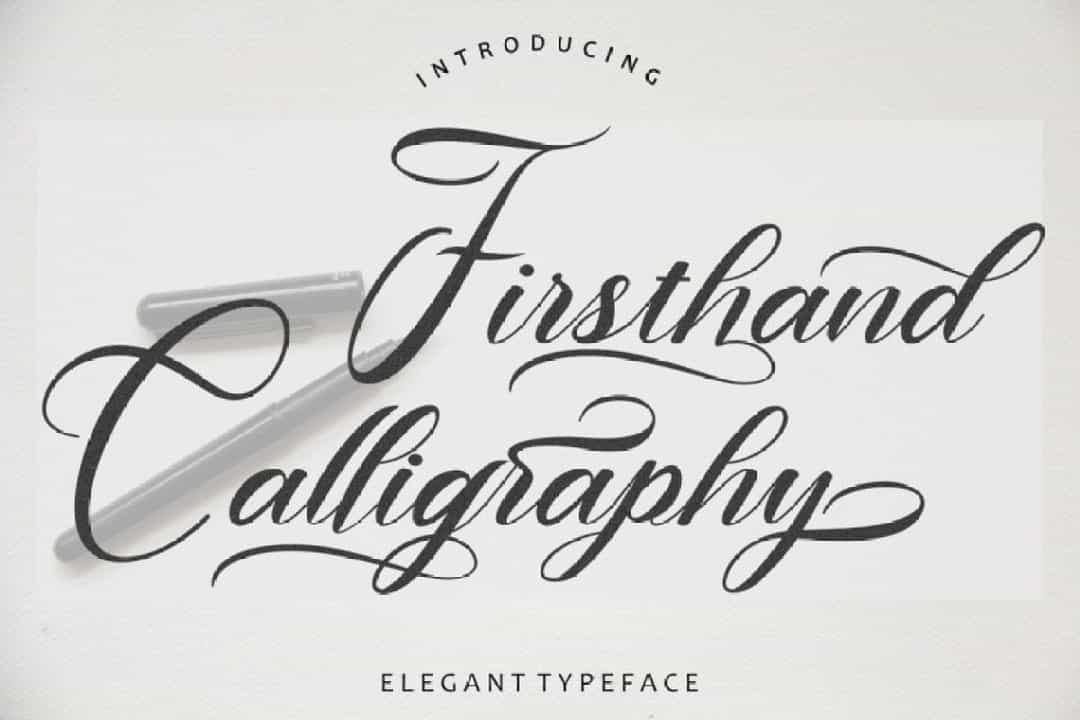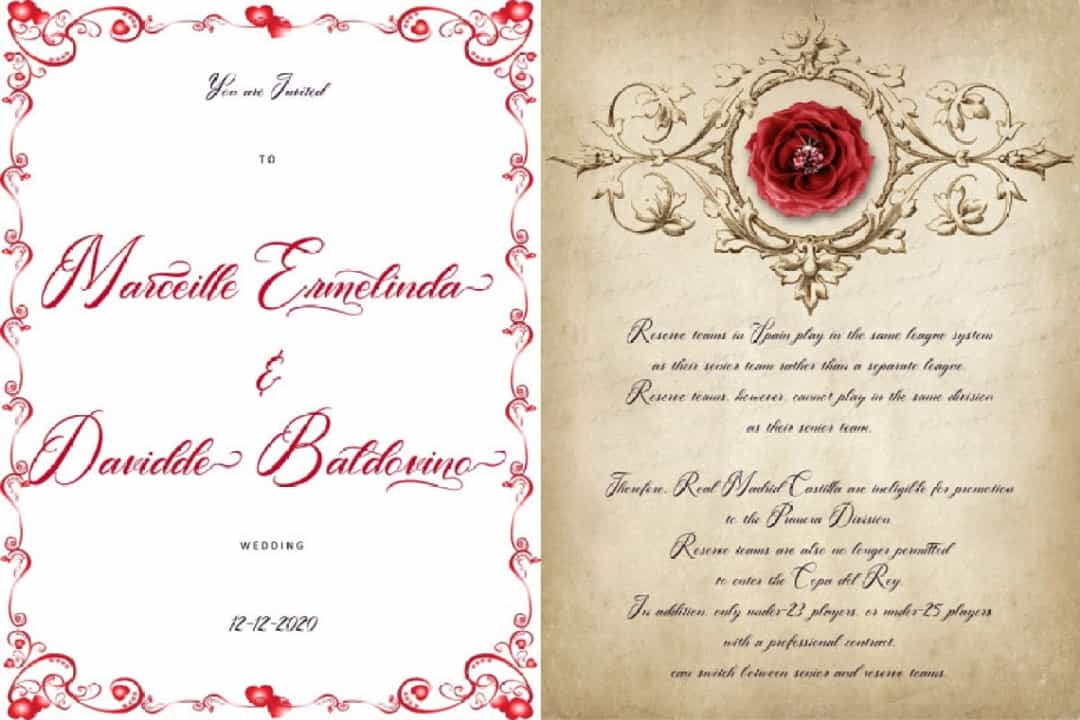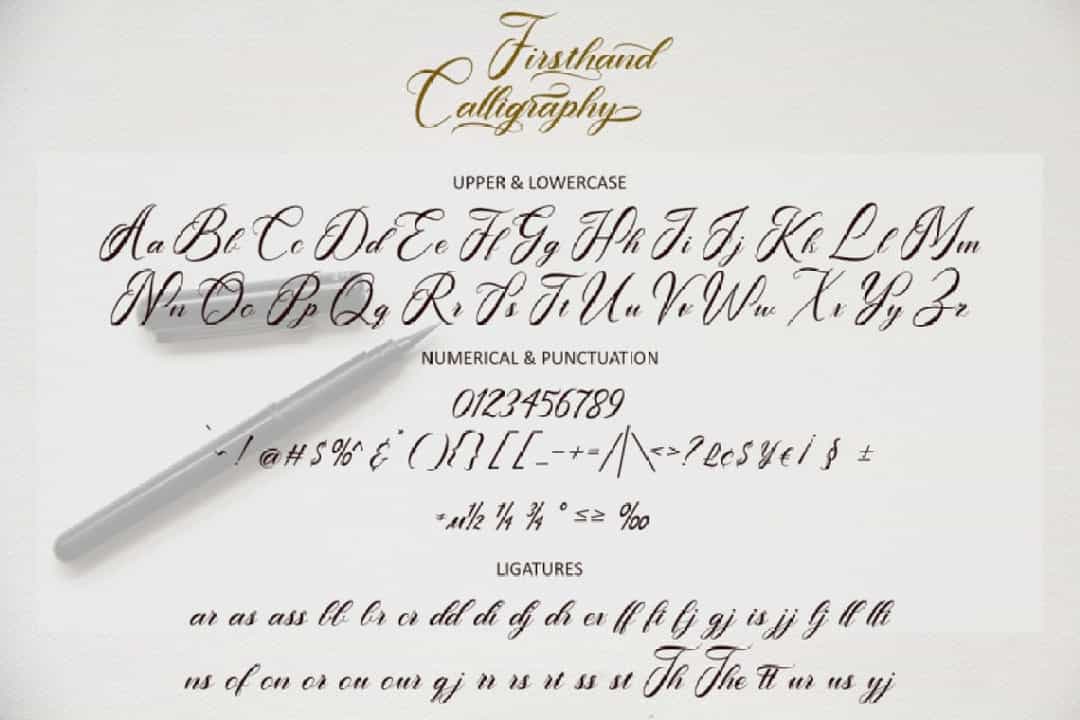
Firsthand calligraphy is a beautiful calligraphy font that you can use in your design works. Ideal for cards and titles, a touch of romance will become an ideal addition to any kind of design. PUA encoded fonts are no exception and they make the access to their beautiful ligatures and swashes a piece of cake!